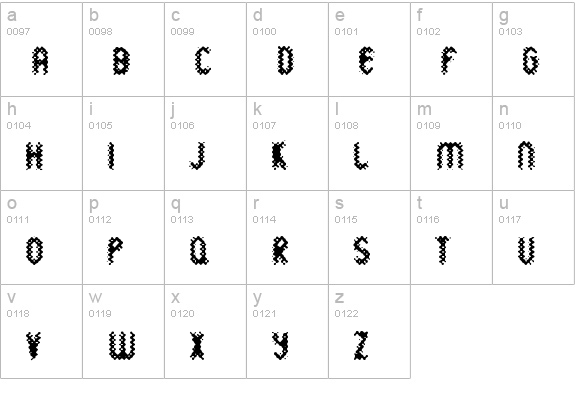
Wild Sewerage Font Details
Introducing the captivating and untamed Wild Sewerage font, a stunning display typeface that breathes life into any design project. With its bold and rebellious personality, this font is perfect for those seeking to break free from the ordinary and make a bold statement. Wild Sewerage font is a true reflection of the chaotic beauty found in the unexplored depths of urban landscapes. Its unique and intricate letterforms are reminiscent of the raw energy and freedom that can be found in the most unexpected places. Each character is carefully crafted to create a sense of movement and dynamism, making this font truly one-of-a-kind. But what makes Wild Sewerage font even more remarkable is that it is freely available to download at FontsMarket.com. That's right, this captivating typeface can be yours without costing a penny. Whether you're a graphic designer looking to add a touch of edginess to your next project or a creative individual seeking a font that stands out from the crowd, Wild Sewerage font is the perfect choice. With its wide range of stylistic alternates and ligatures, this font offers endless possibilities for customization. From posters and album covers to branding and packaging designs, Wild Sewerage font effortlessly adds a touch of urban grit and rebellious spirit to any design. So don't miss out on the opportunity to unleash your creativity and download Wild Sewerage font for free at FontsMarket.com. Embrace the wild, embrace the unconventional, and let this extraordinary typeface elevate your designs to new heights.